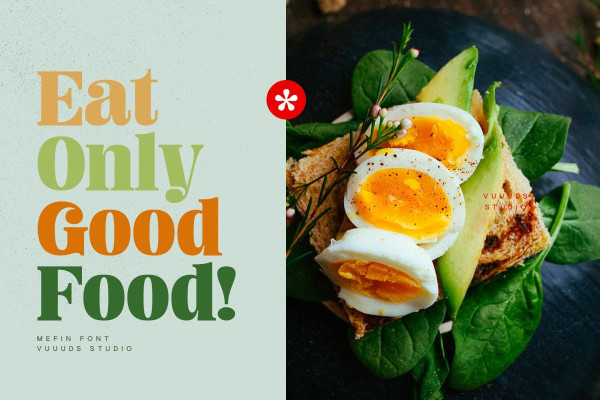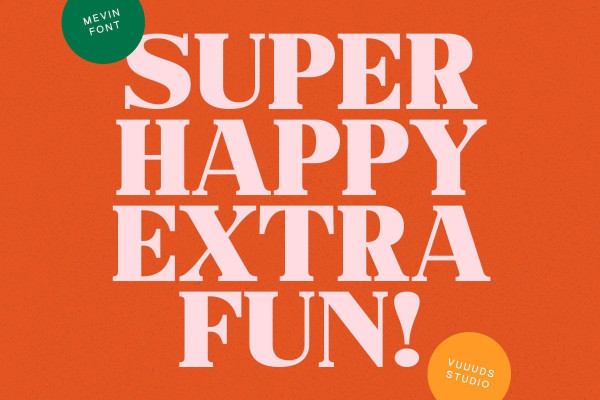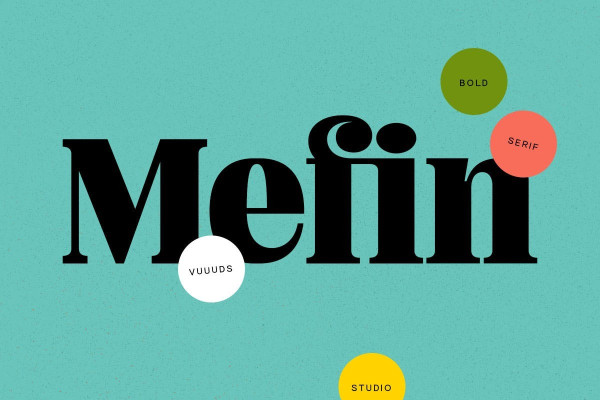
Mefin Font
Mefin Font is retro serif style font, every single letters have been uniquely crafted. This font including beautiful alternate glyph. You can access the alternate glyph via Font Book (Mac user) or Windows Character Map (Windows user), I’ve been put the link tutorial inside the zip file.